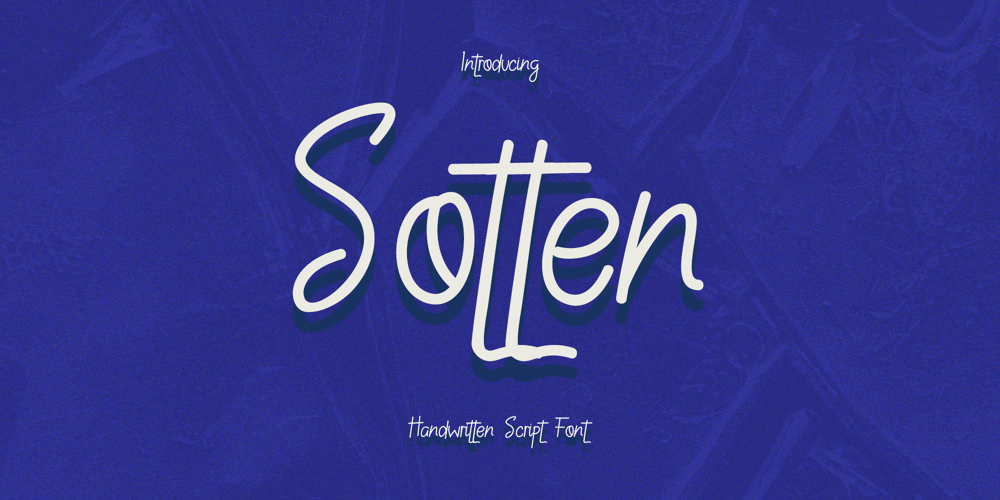
Sotten Font Family was designed by Frederik Aristaputra and published by Creatifont Studio. Sotten contains 2 styles and family package options. Sotten is a captivating handwritten monoline font that dances between graceful sophistication and a touch of lighthearted fun. Perfect for adding a personal touch to your designs, Sotten offers a beautiful freehand aesthetic with a hint of playfulness. Sotten is Ideal for: Wedding invitations and stationery that exude timeless elegance with a touch of personality, Greeting cards, posters, and social media graphics that combine sophistication with a hint of playfulness, Branding materials for businesses seeking a touch of handwritten charm, Elegant yet casual design projects that demand attention, Any project where a beautiful handwritten font with a touch of whimsy is desired.A SUMMARY OF WHAT’S INCLUDED: Standard Character A-Z, a-z, 0-9, Punctuation & symbols Regular and Alternate Set Ligatures and Alternates Multilingual Support Works on PC & Mac Simple installation Accessible in Adobe Creative Suite (Ai, Ps, Id, etc.) even work on Microsoft Word. PUA Encoded Characters – Fully accessible without additional design software. ————————————————-SOFTWARE REQUIREMENTS:Most software readily supports the regular fonts within the package — To unlock the full potential of the extensive collection of standard ligatures (custom connected letters) found in the script font, you can use any software with OpenType font compatibility.To generate all ligatures, please go open Adobe Illustrator – Type – Glyphs.Please drop me a message if you have trouble regarding either installing or using this font.🌟If you come across any issues or notice anything we might have overlooked while using this product, please feel free to reach out to us. We greatly value your feedback as it helps us enhance and refine our products. Thank you!